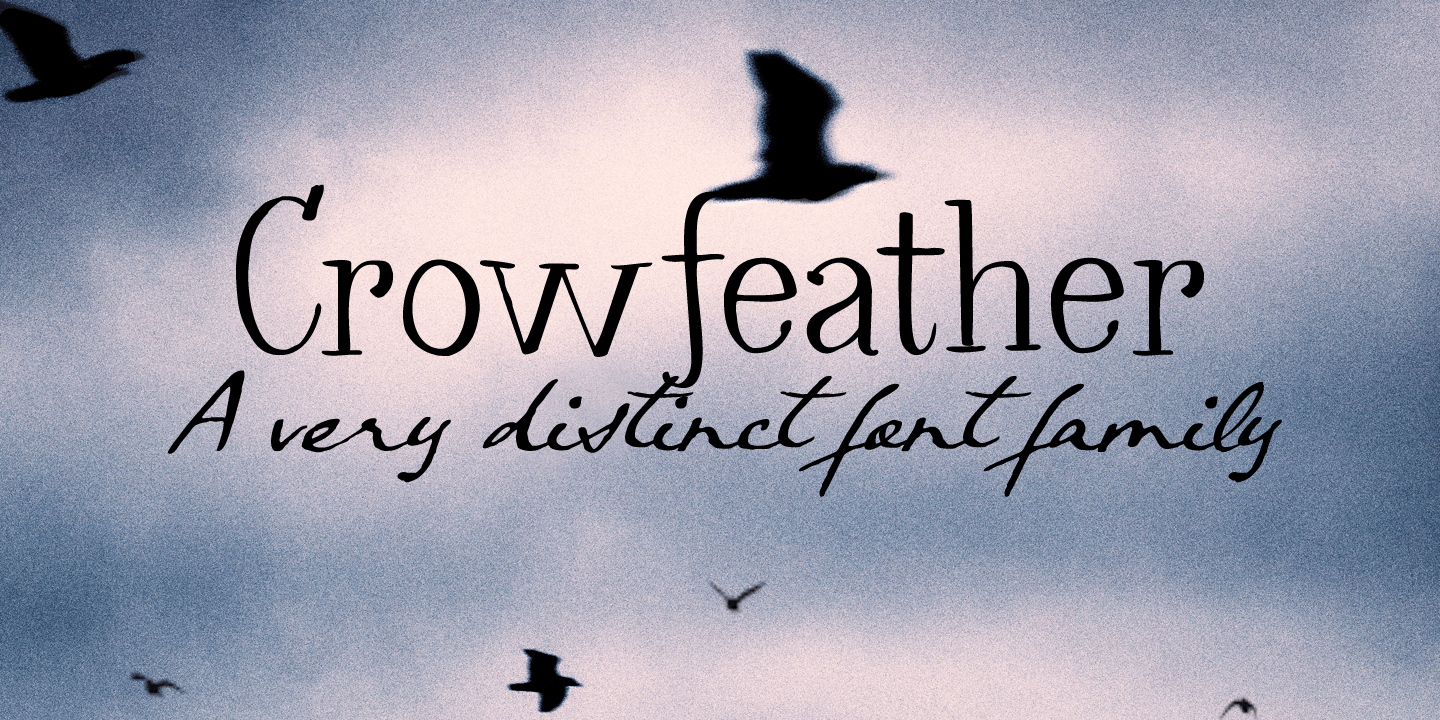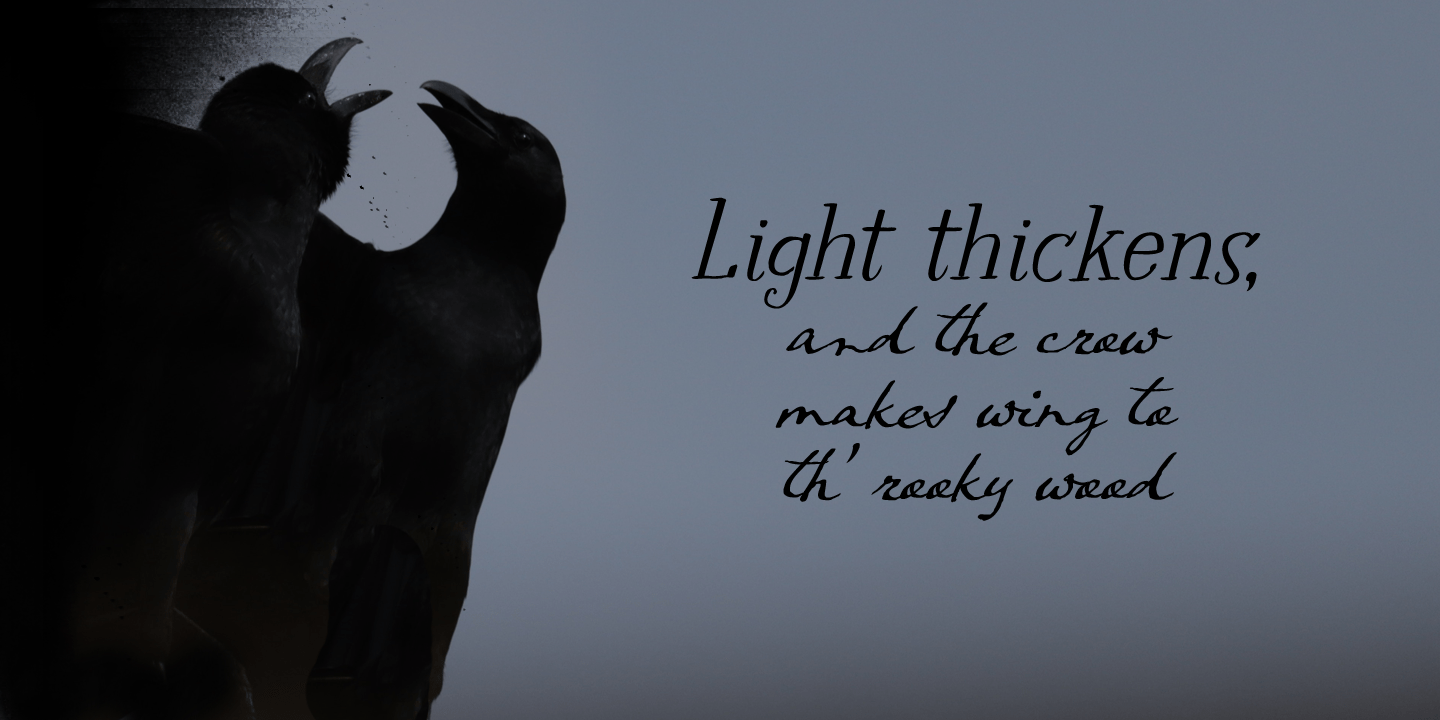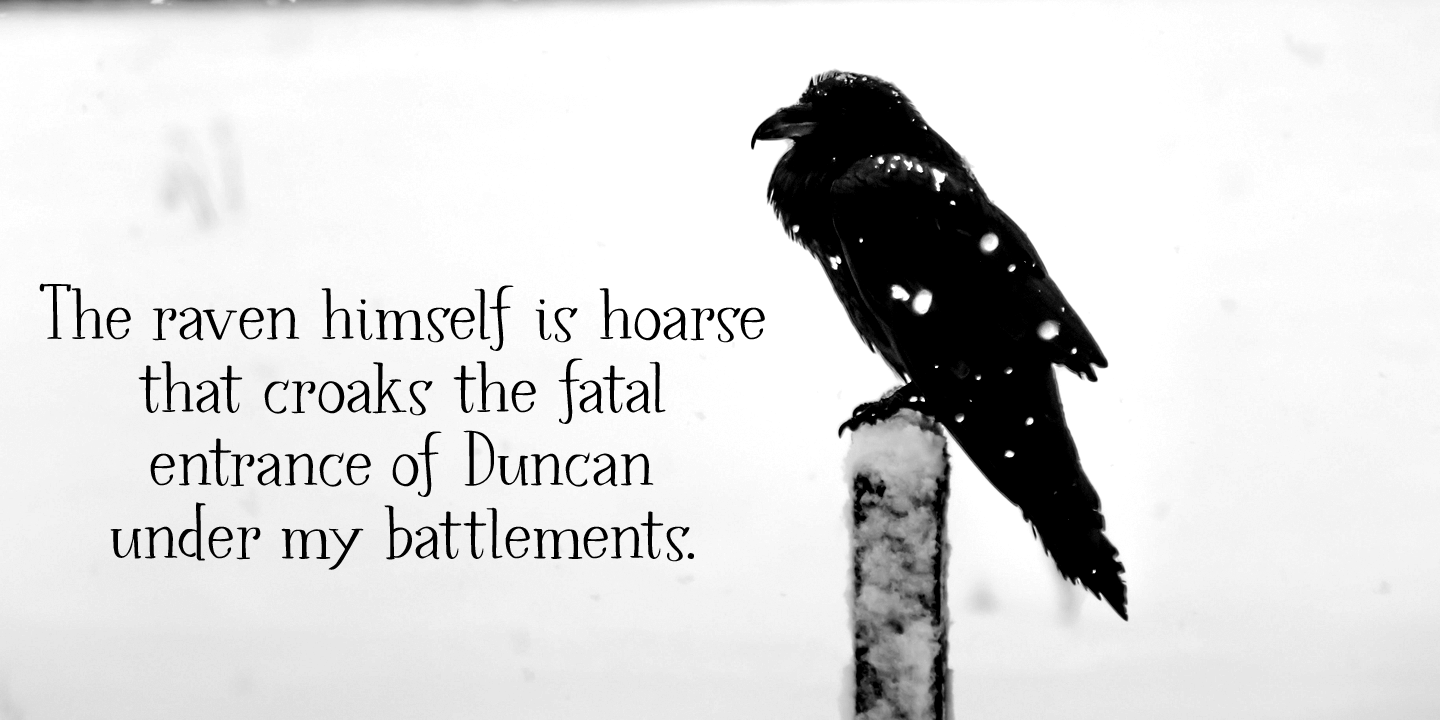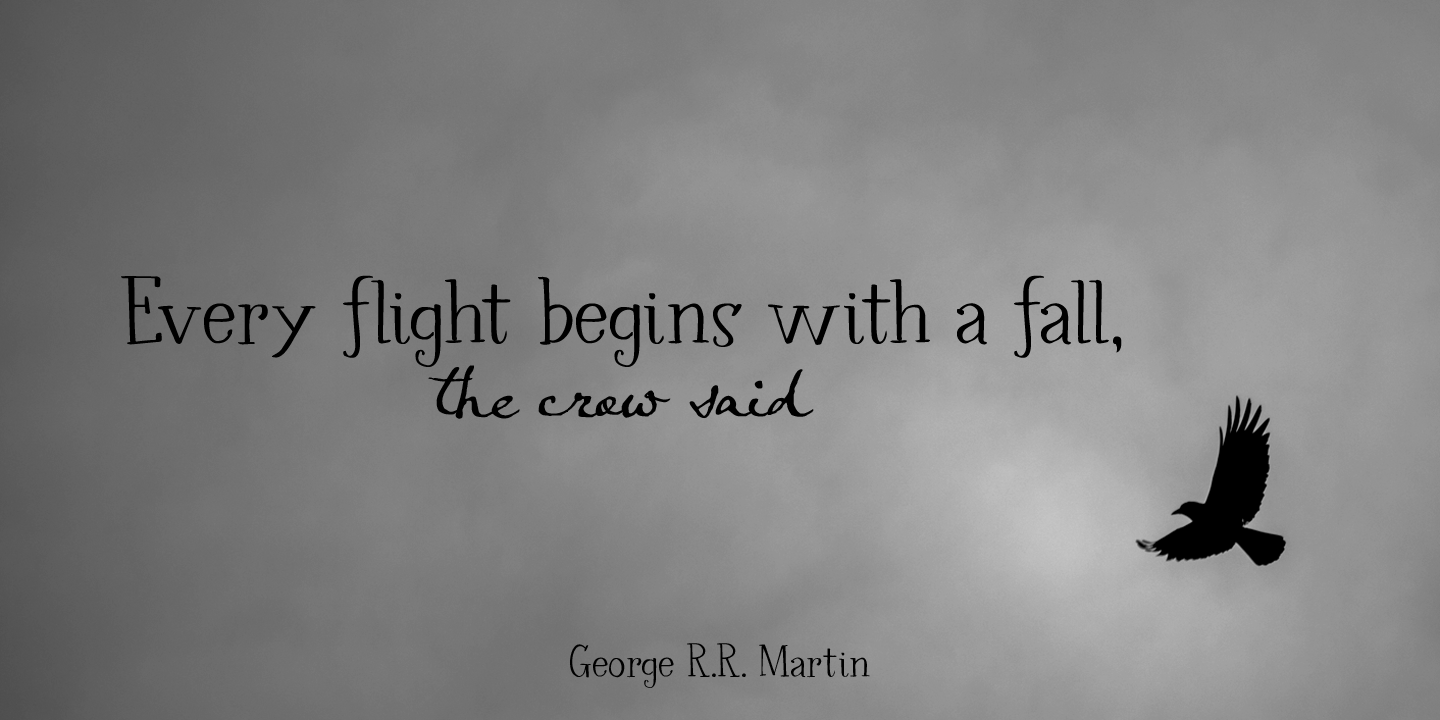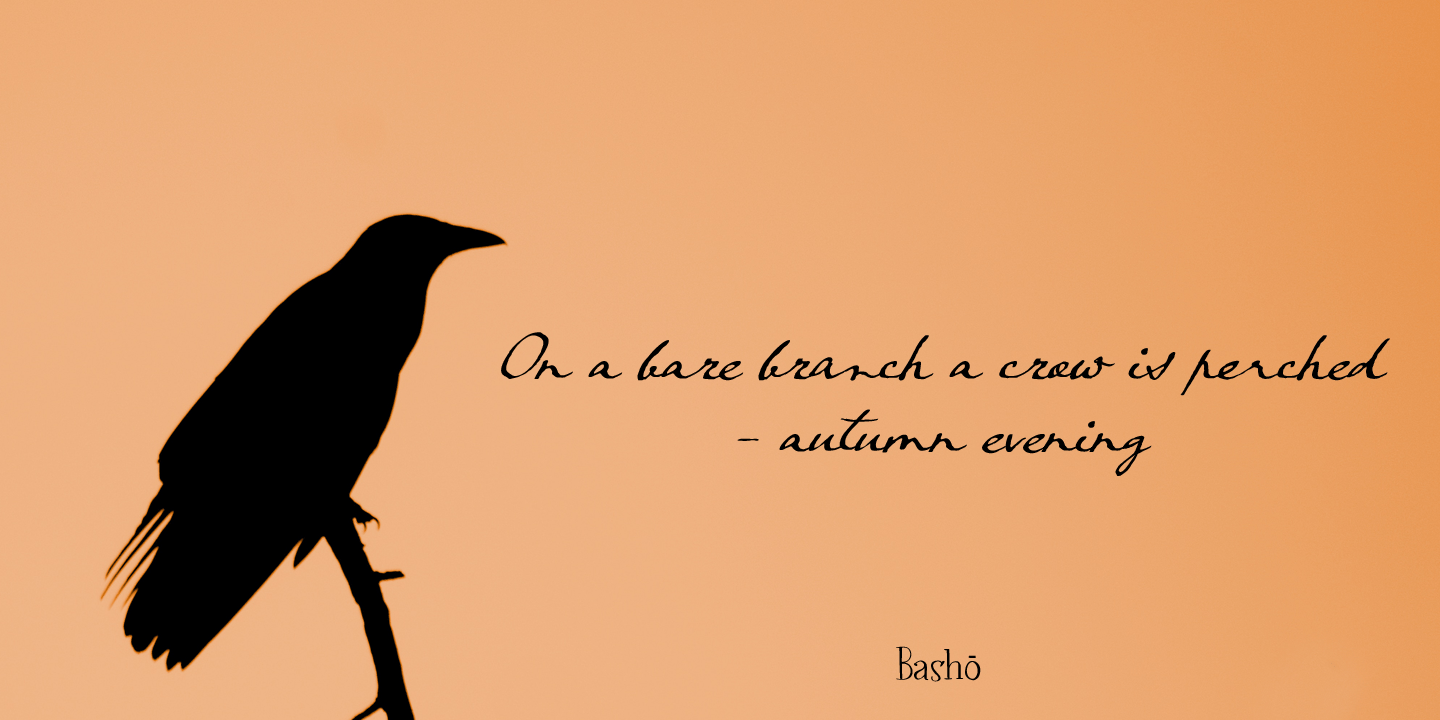
Crowfeather
I first wanted to call this family Crowbone, after Olaf Tryggvason, the legendary Viking king from Norway. Somehow I changed my mind and went for Crowfeather, because this is not a Viking font and the name ?felt? better.
Crowfeather is a family of two distinct fonts: a classic Serif and an old school script font. They work really well together!